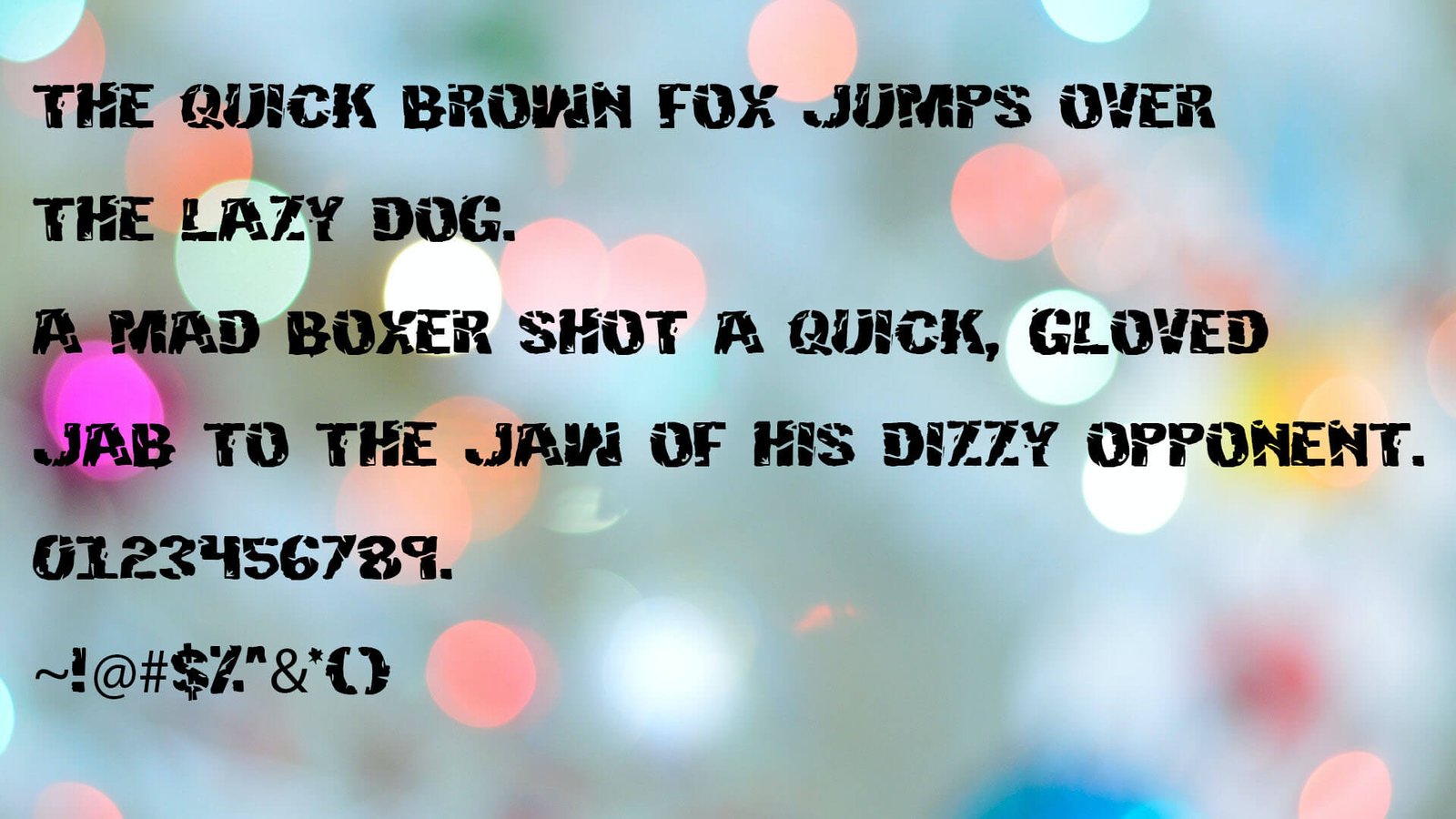
Hulk font belongs to the Sans-Serif font family. It was created by Iconian Font specifically for The Incredible Hulk movie logo. The same textured style was later utilized for the logo of the cartoon series based on the movie.
Some time pas this movie and became quite famous and then its game was also released and this textured style was also used in this game as texture content.
This typeface contains a perfect look for heading purposes because it contains bold and strong texture appearances.